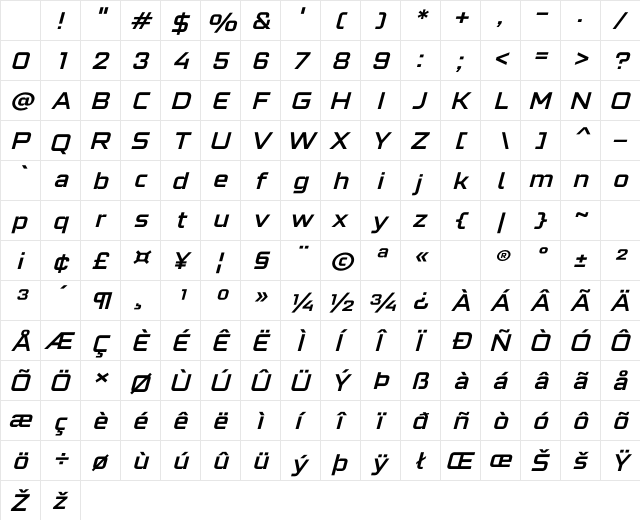
Complete Armstrong Oblique Regular glyph index. Displaying only characters natively supported by Armstrong Oblique Regular font.
Armstrong Oblique is a composed and adaptable typeface that performs quietly and consistently across a wide range of design contexts. The slanted form adds forward momentum and visual energy.